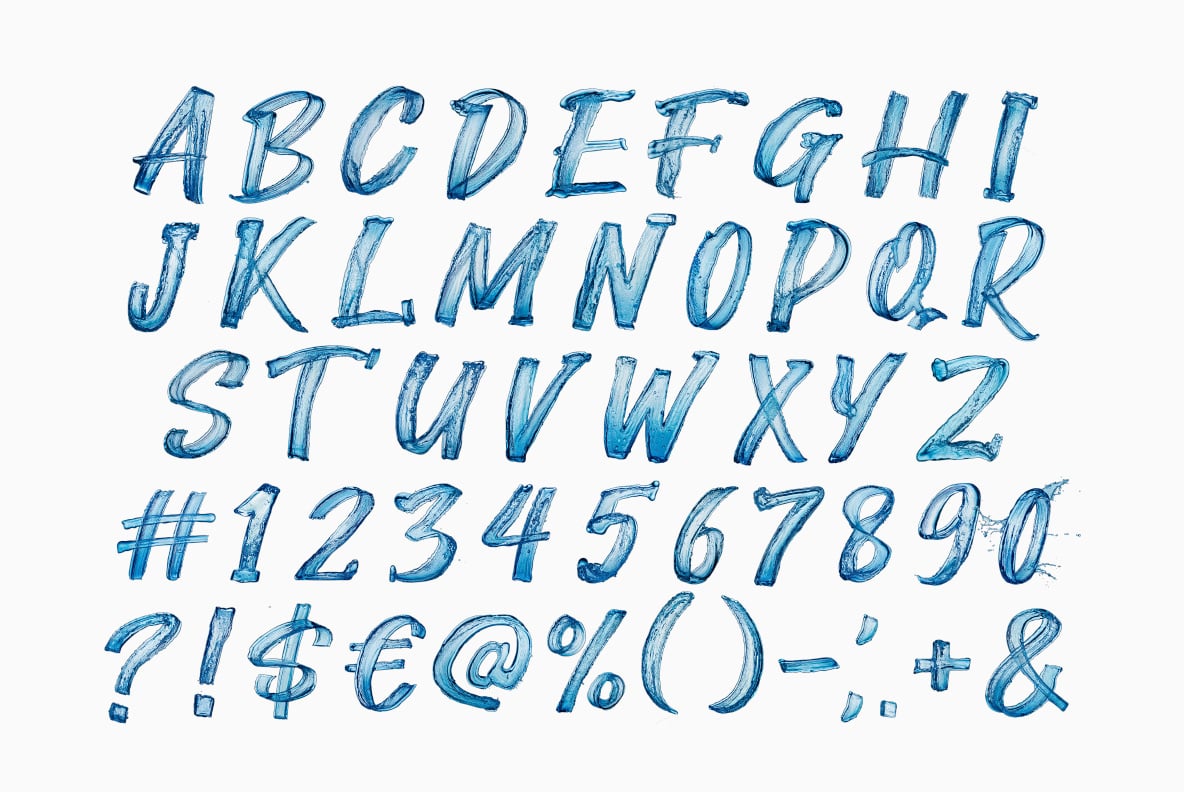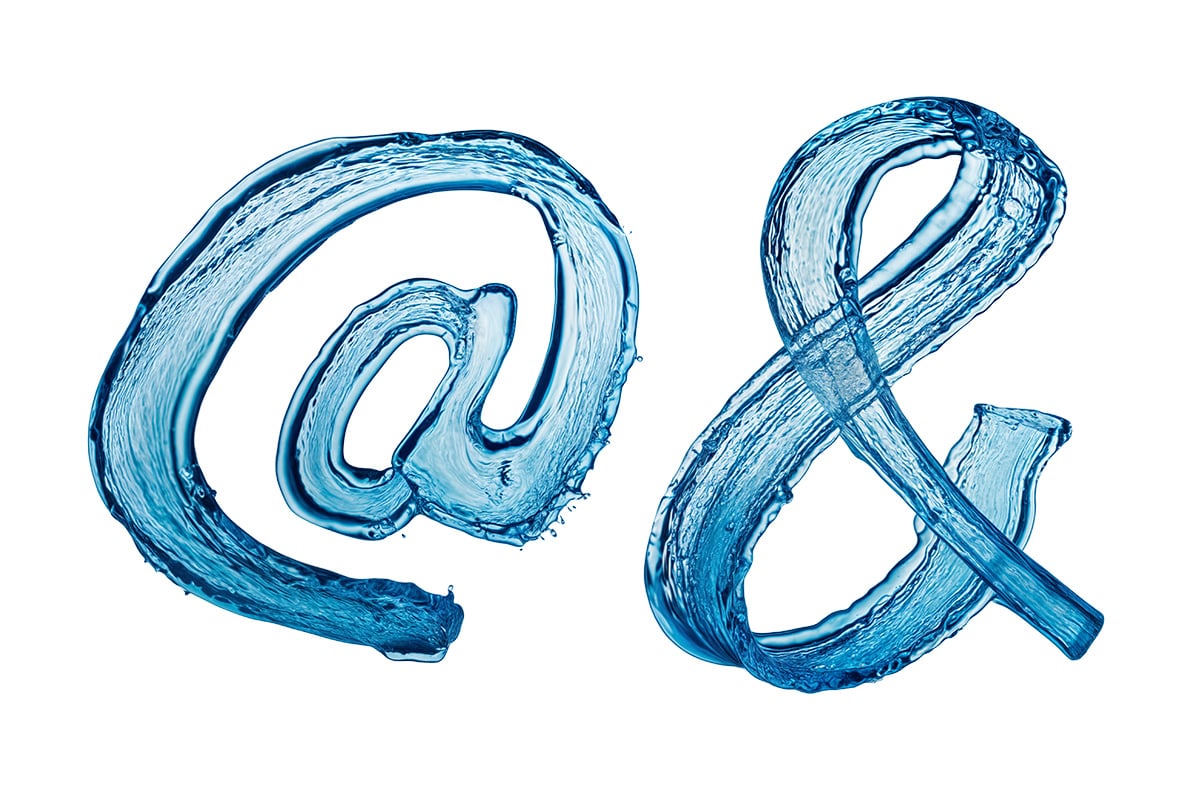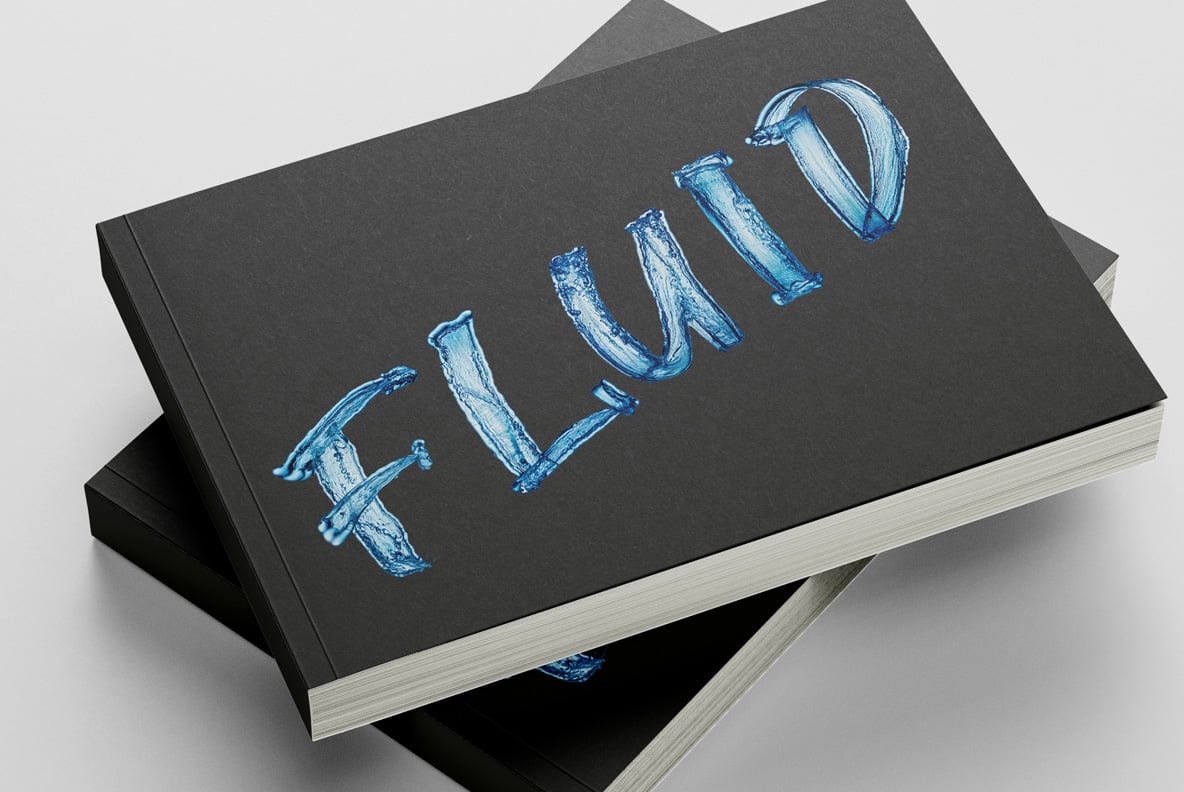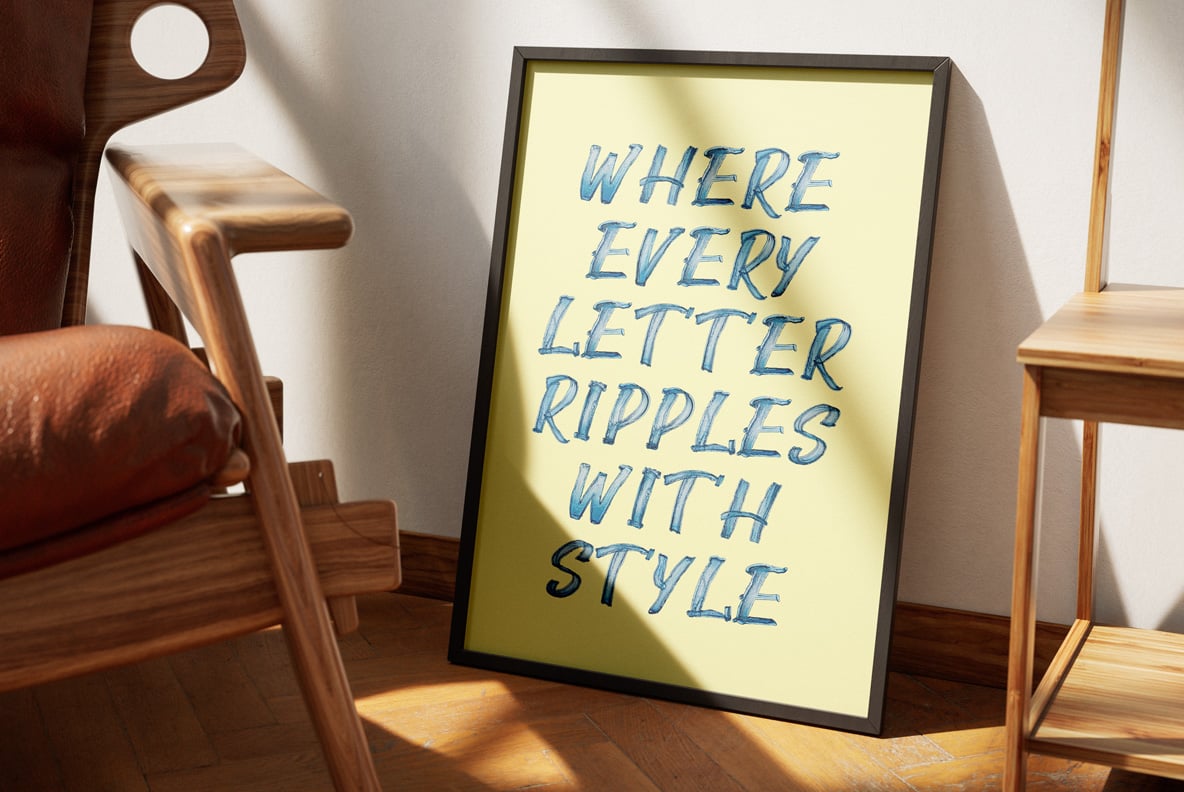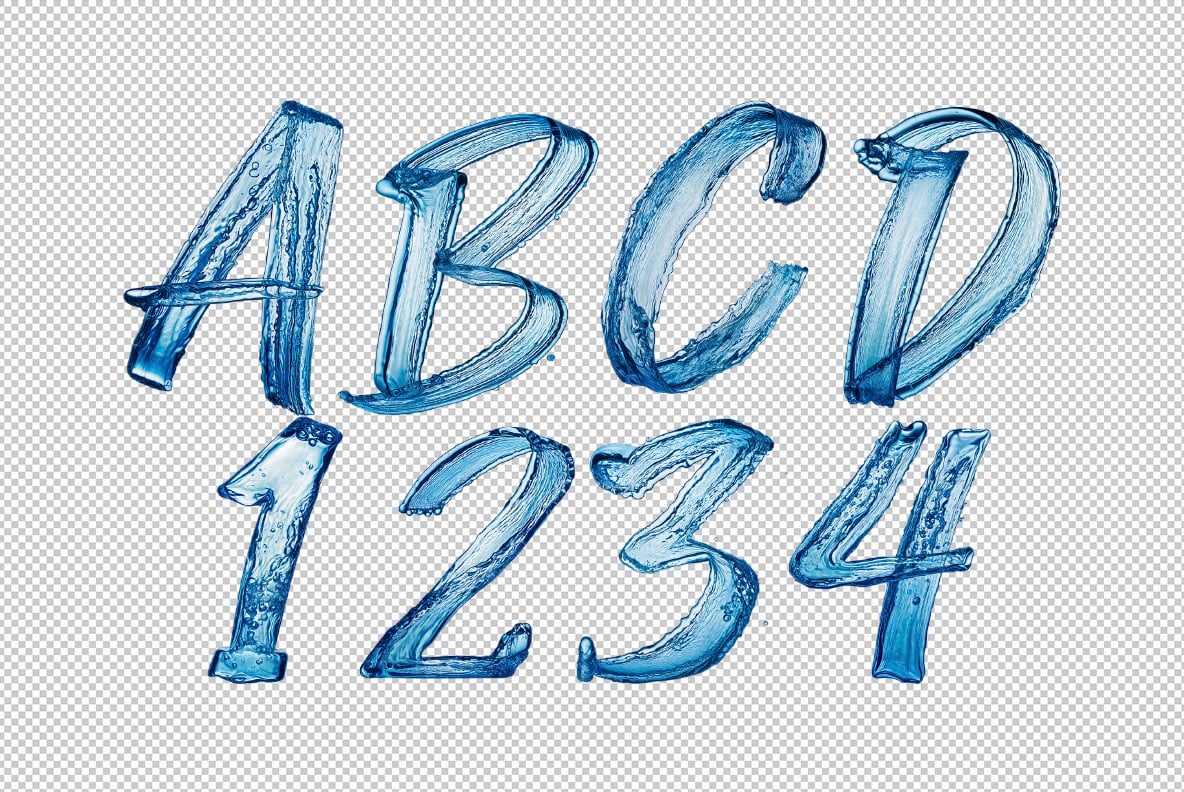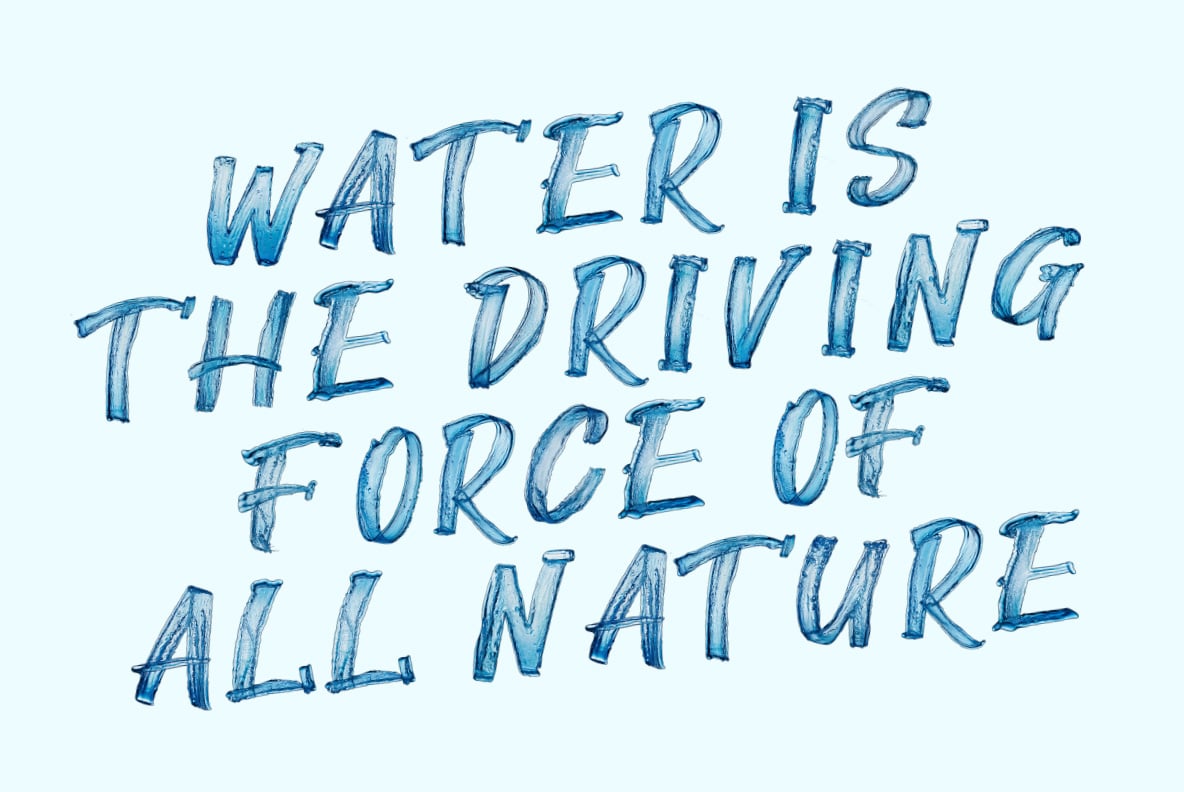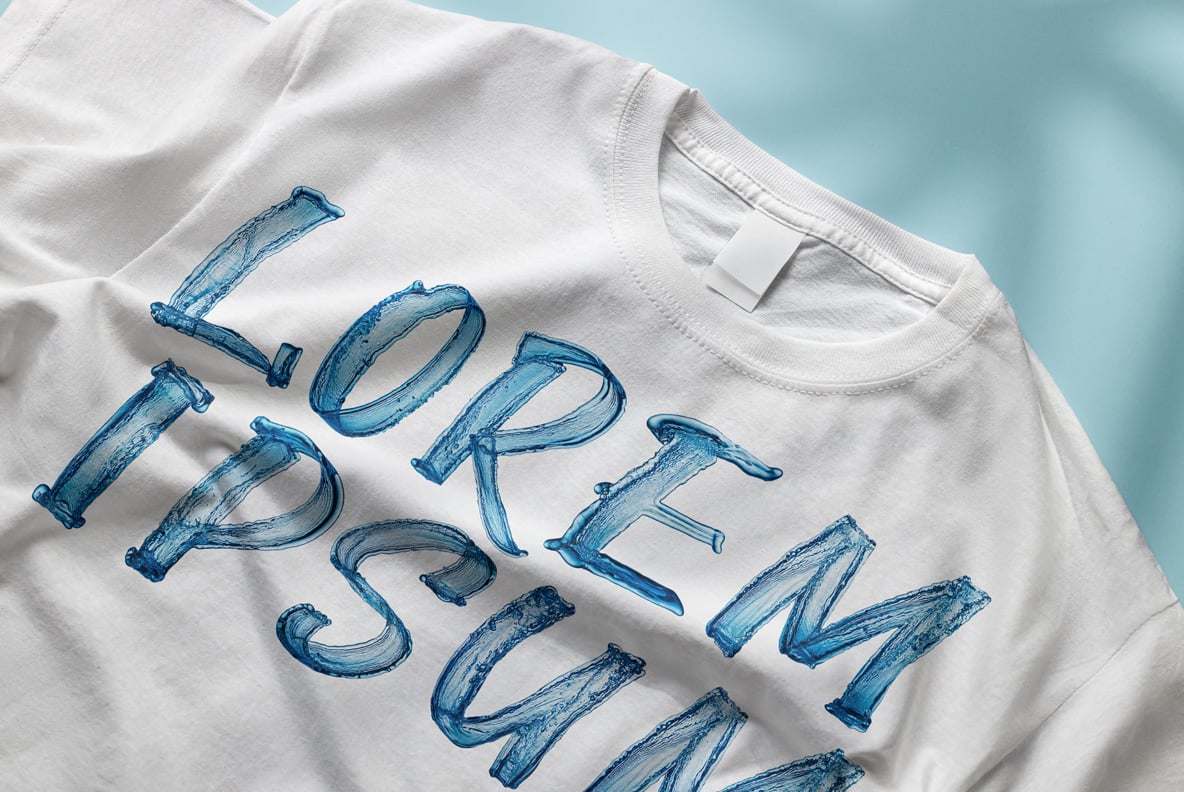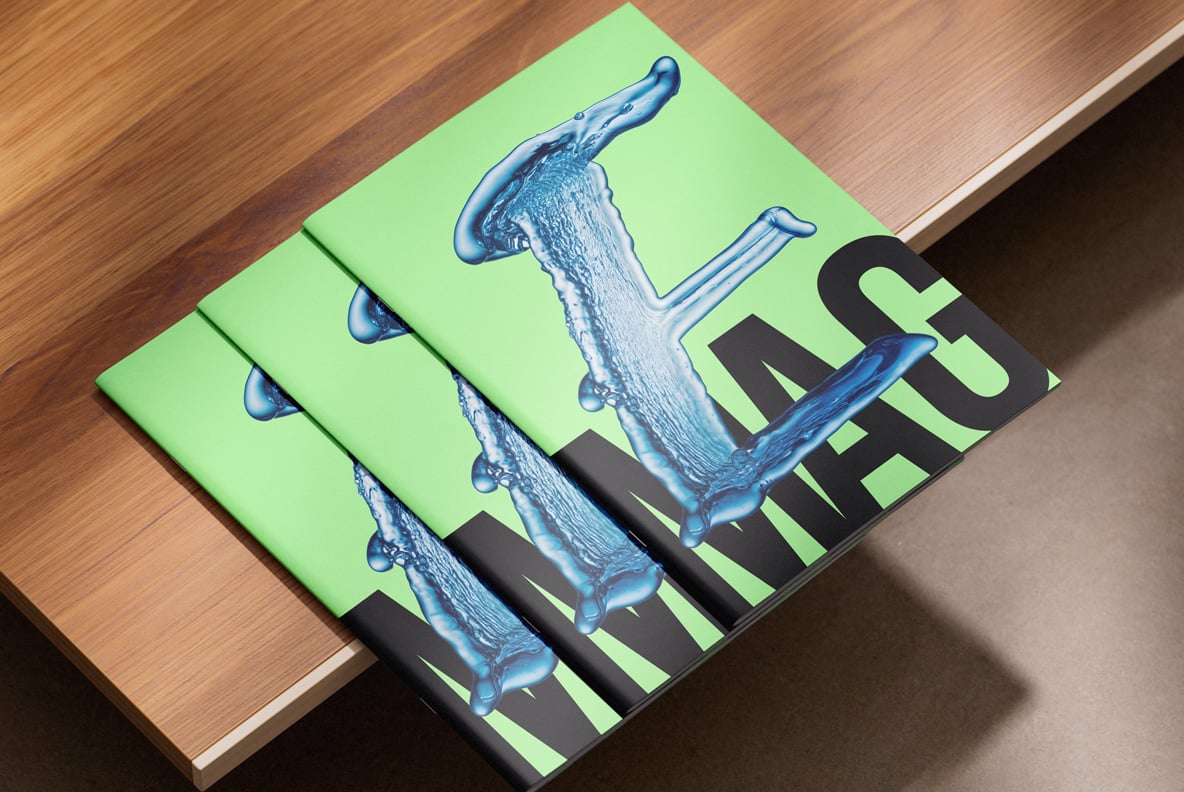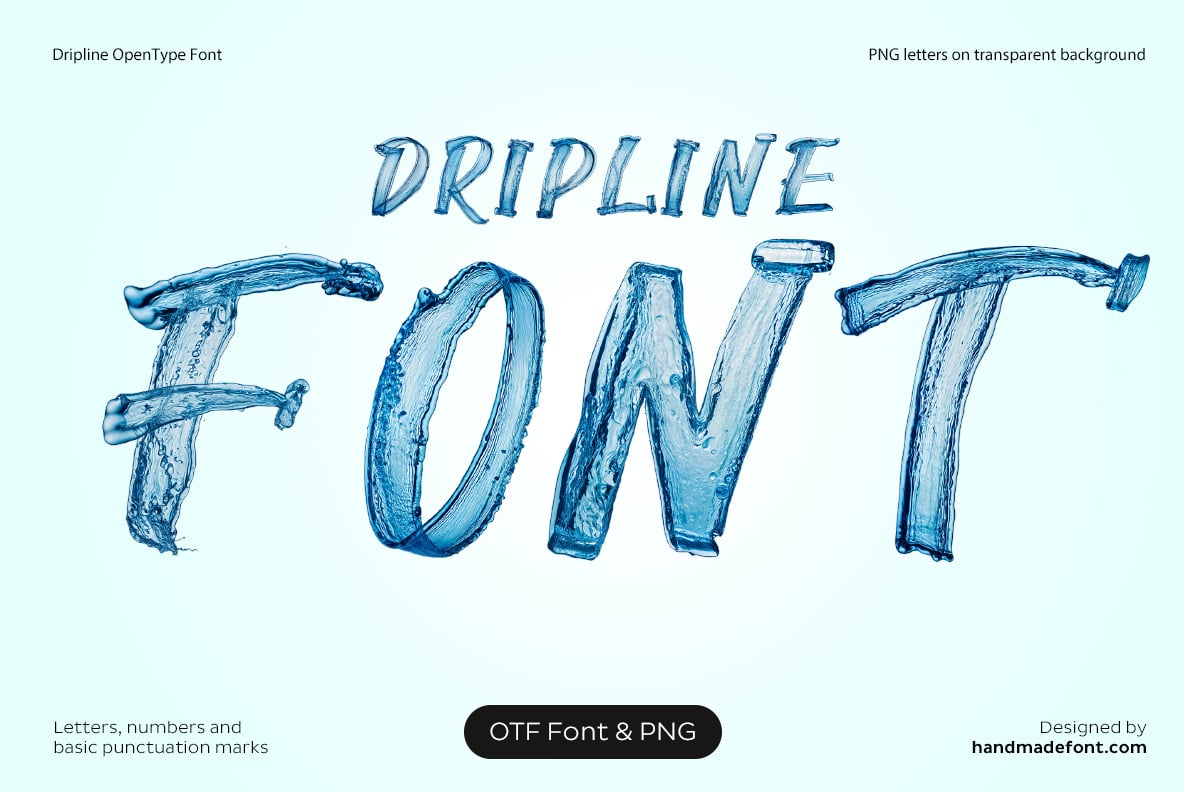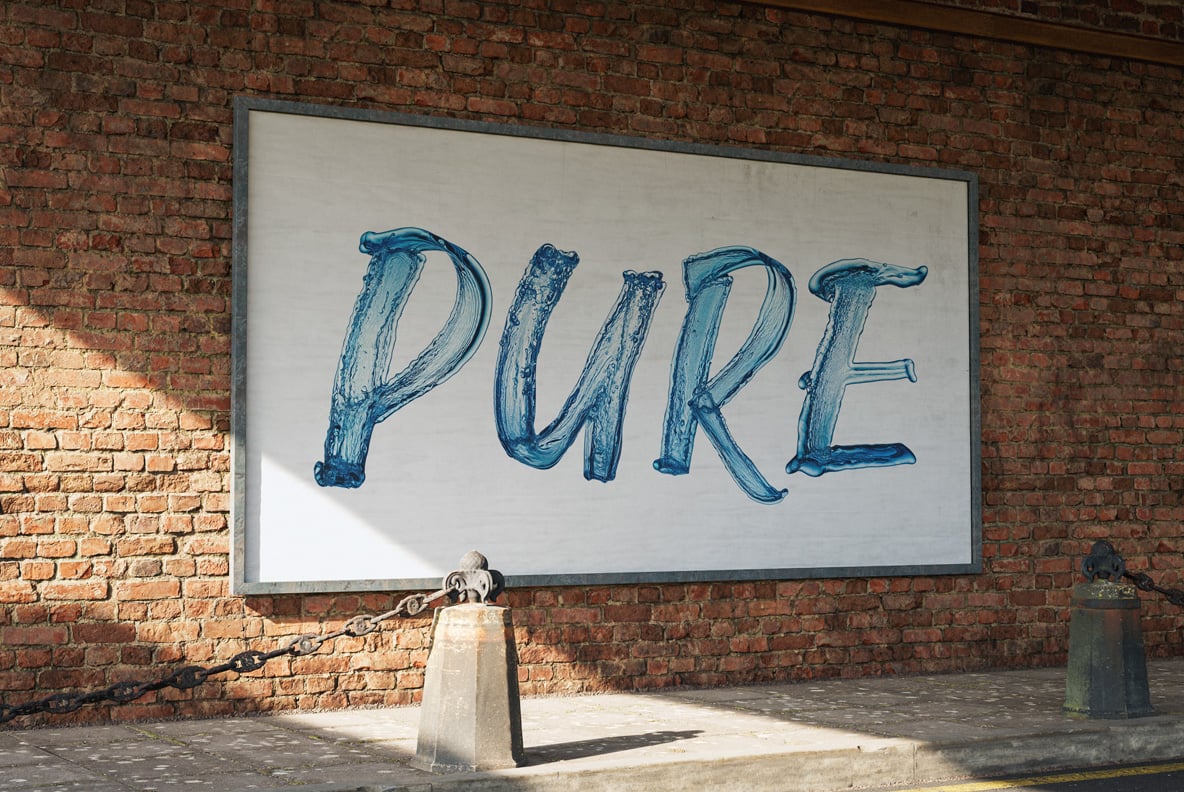
Dripline Font
Dripline Font is a striking and imaginative typeface that captures the essence of flowing water. Each letter is crafted to resemble liquid in motion—splashing, dripping, and streaming with natural elegance. This font radiates freshness, purity, and fluidity, making it perfect for eco-friendly branding, spa and wellness themes, beverage packaging, or creative digital design. With its smooth curves and transparent texture, Dripline Font brings a sense of calm and movement, mimicking the graceful behavior of water. It's both artistic and functional, ideal for standing out while conveying a message of clarity, sustainability, and refreshment. Dive into design with Dripline Font!